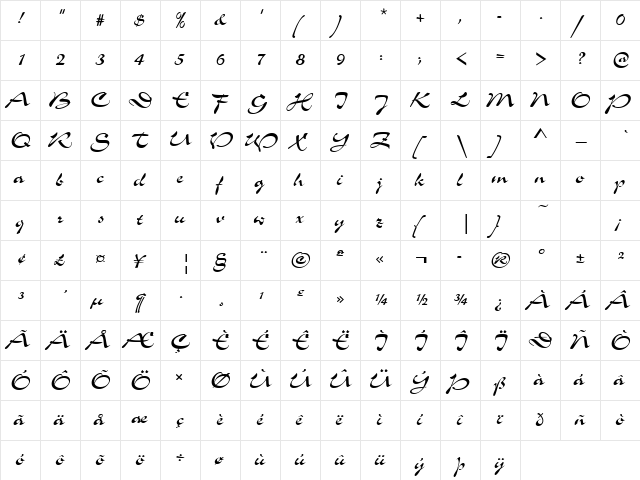
SloganJoiD Regular
Design Context for SloganJoiD Typeface
SloganJoiD is a composed and adaptable typeface that performs quietly and consistently across a wide range of design contexts.